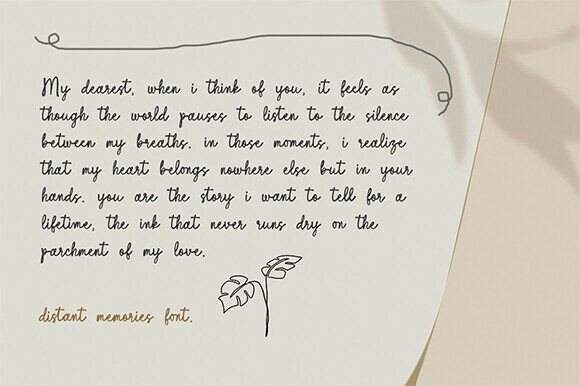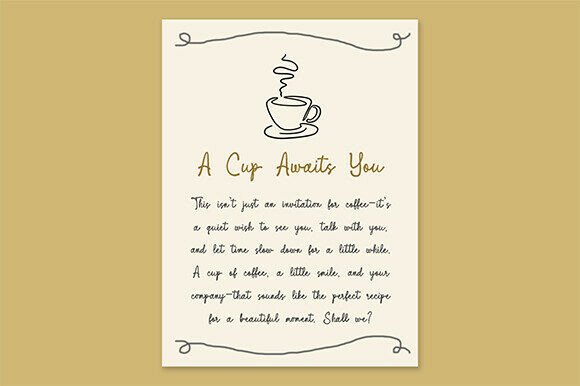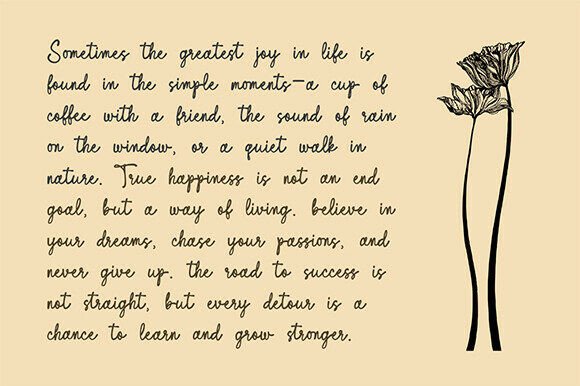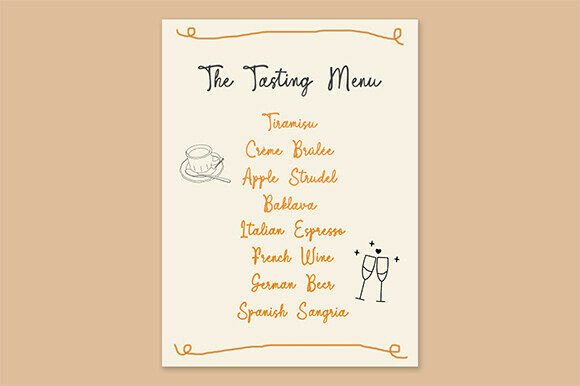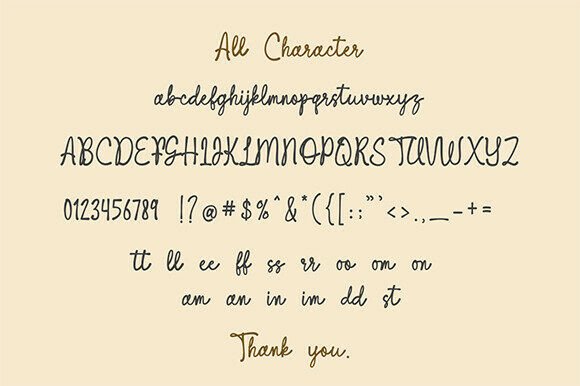
Introduction to Distant Memories Font
Distant Memories is a beautifully crafted handwritten script font designed to bring elegance, warmth, and personality into your creative projects.
With its flowing curves and natural strokes, this font captures the charm of authentic handwriting while keeping an aesthetic and modern appeal .